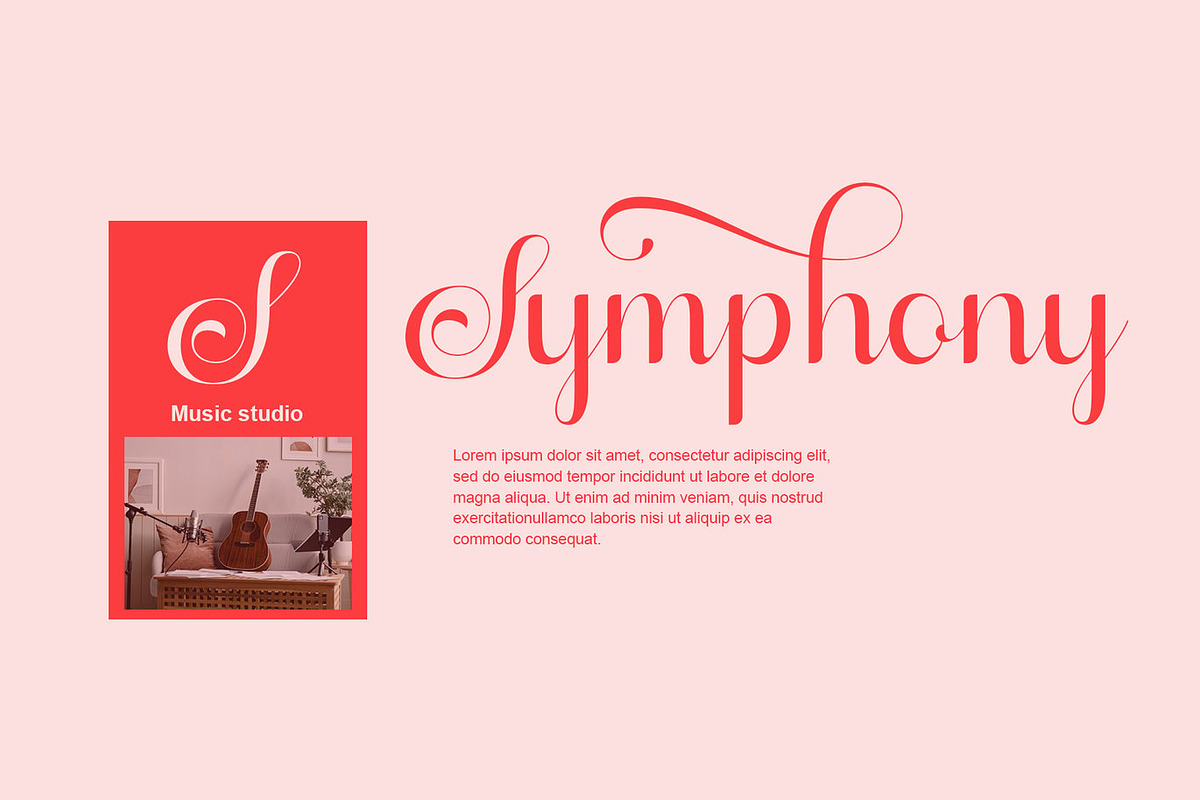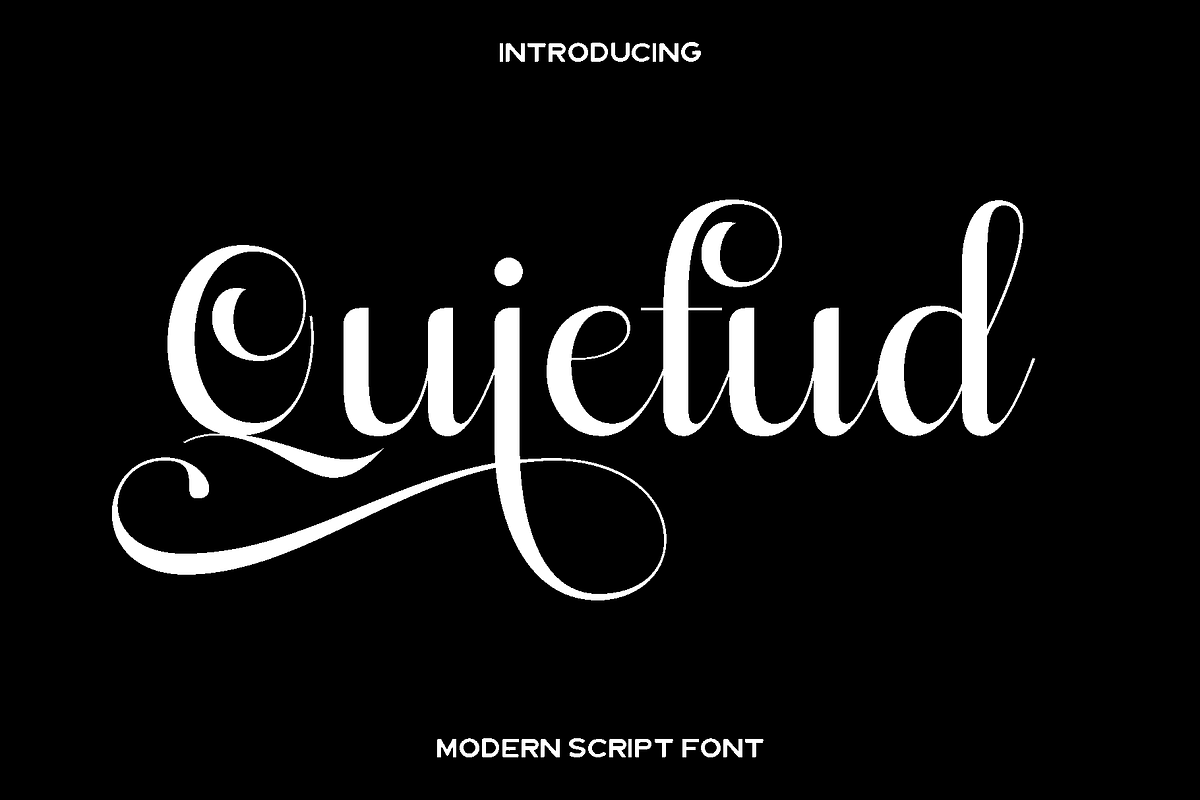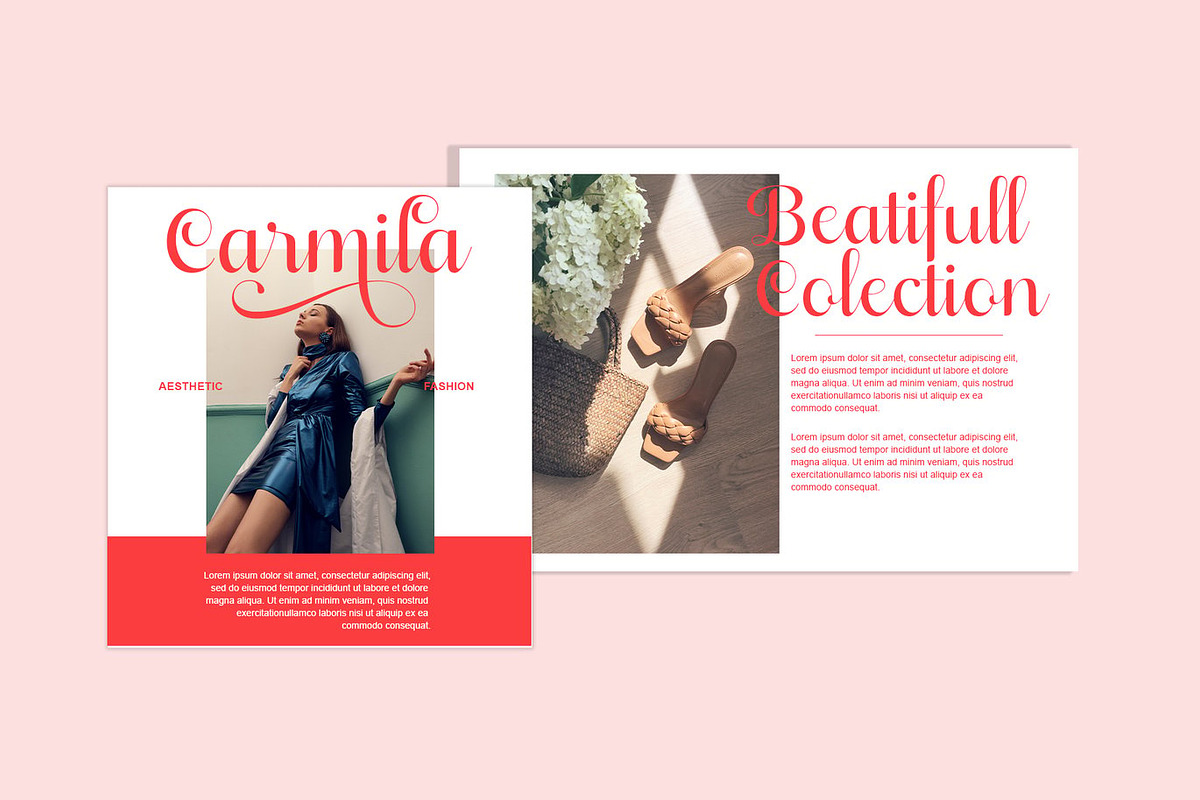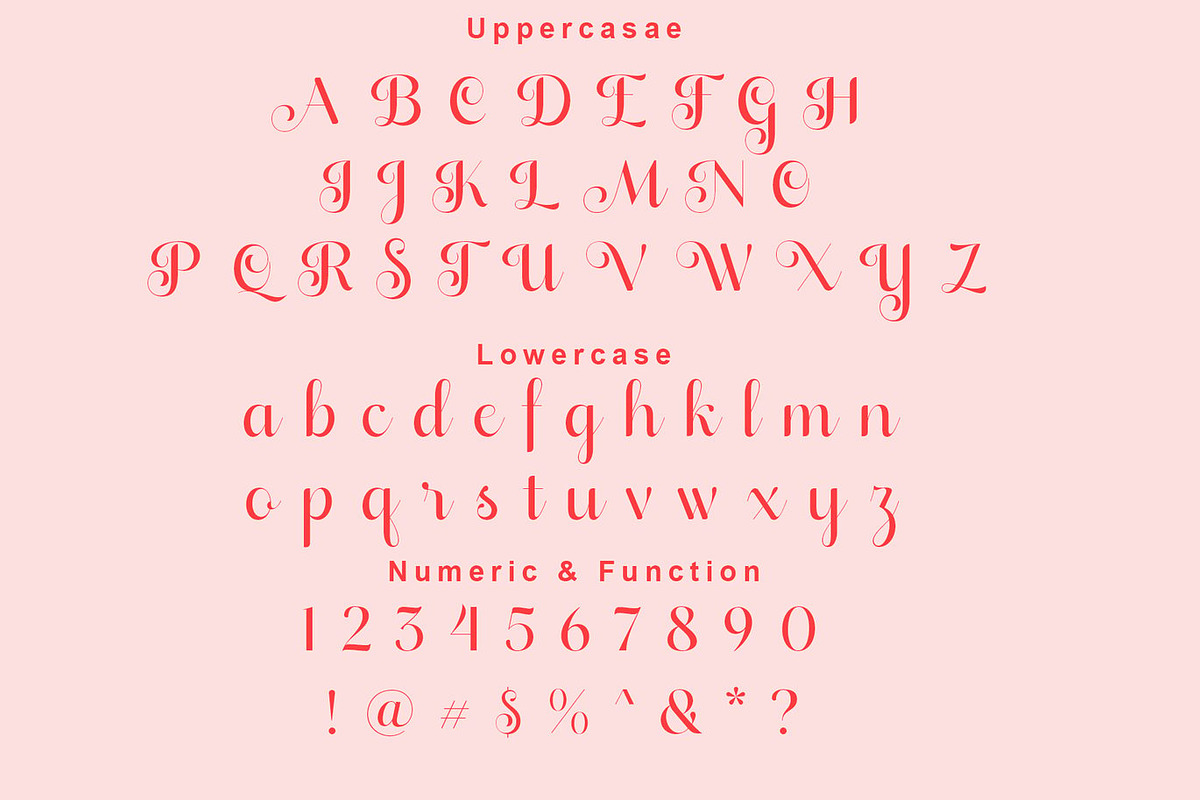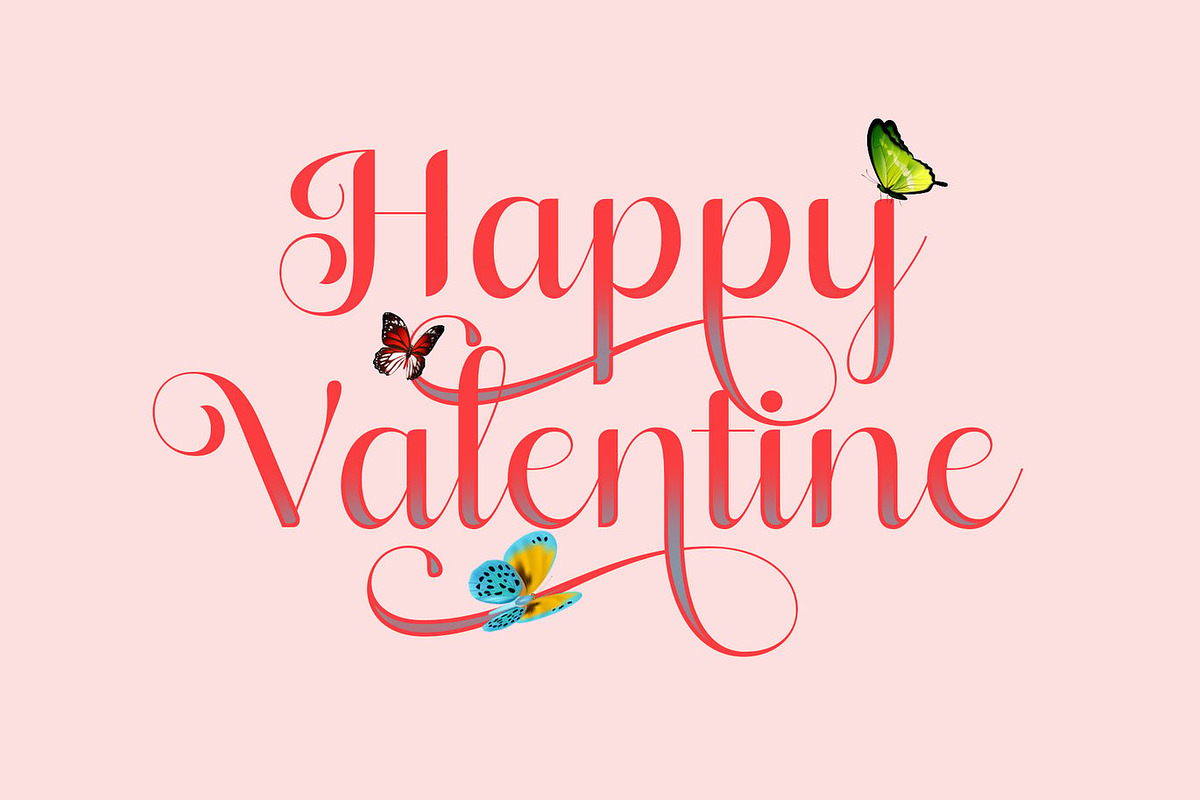
Quietud Elegant Calligraphy Script
Quietud is a graceful calligraphy writing font created to express beauty, harmony, and emotional warmth through every stroke. Inspired by natural handwriting and flowing ink movements, Quietud features beautifully shaped letterforms that feel soft, personal, and refined. Each character is crafted with care to create a smooth rhythm, giving your text a romantic and expressive personality.
This font shines in projects that require a human touch and elegant presence. Quietud is perfect for logos and branding, wedding invitations, stationery, greeting cards, social media content, advertisements, printed quotes, photography watermarks, labels, and product packaging. Its balanced flow and artistic curves make every word feel intentional and visually pleasing, whether used in large headlines or subtle details.
Quietud feels calm, charming, and sophisticated. It brings a sense of authenticity and creativity to both digital and print designs, making it ideal for designers who want their work to feel personal and memorable. With its versatile alternates and multilingual support, Quietud adapts effortlessly to a wide range of creative applications while maintaining its elegant handwritten style.
Quietud Calligraphy Writing Font Features:
• Uppercase and lowercase characters
• Numerals and functional symbols
• Stylistic and alternate characters
• Multilingual support
• Smooth calligraphy letterforms designed for elegant layouts
Quietud is a perfect choice for creatives who want to add warmth, elegance, and timeless beauty to their designs.